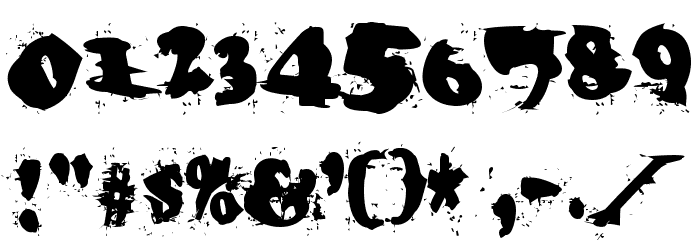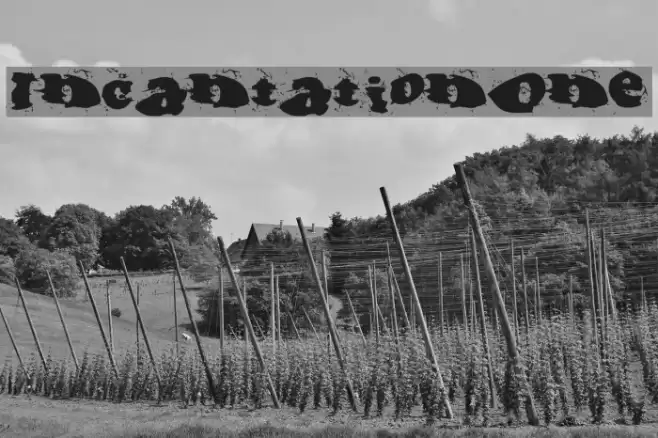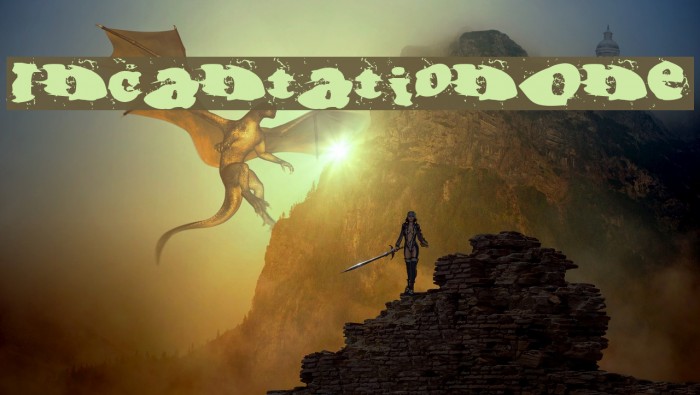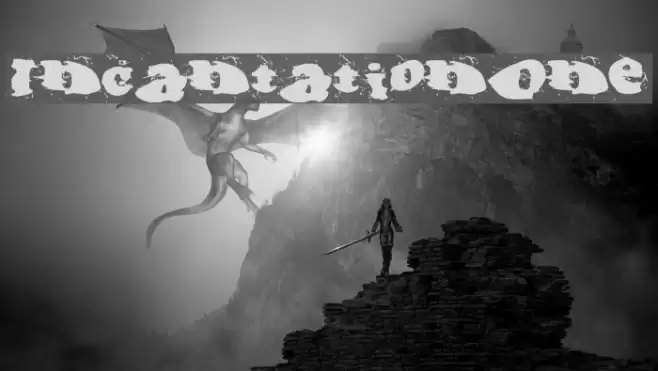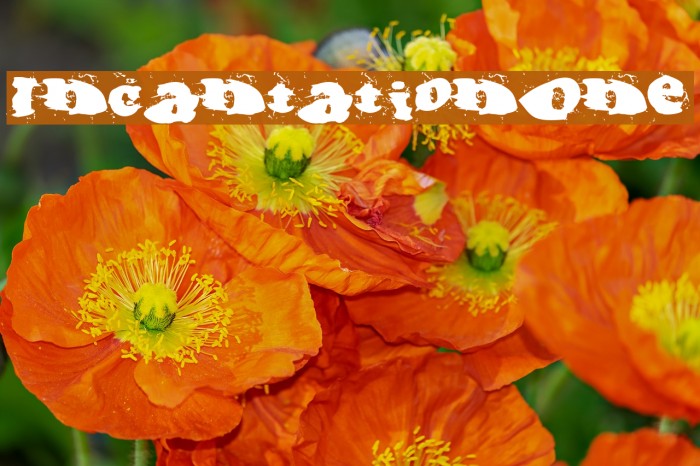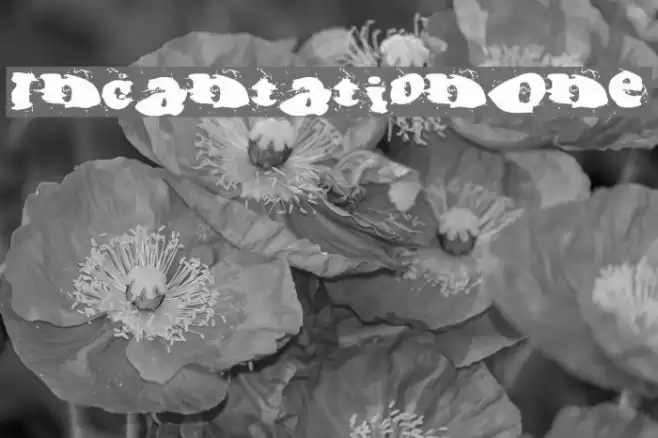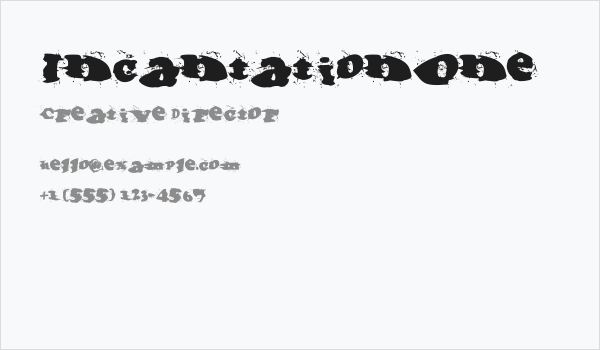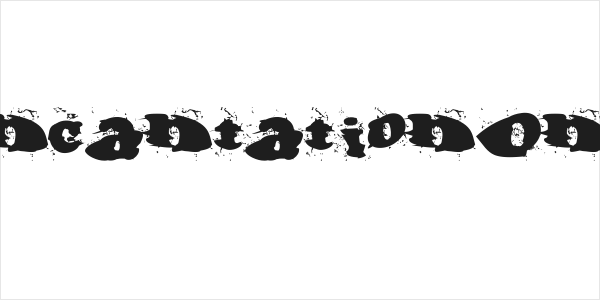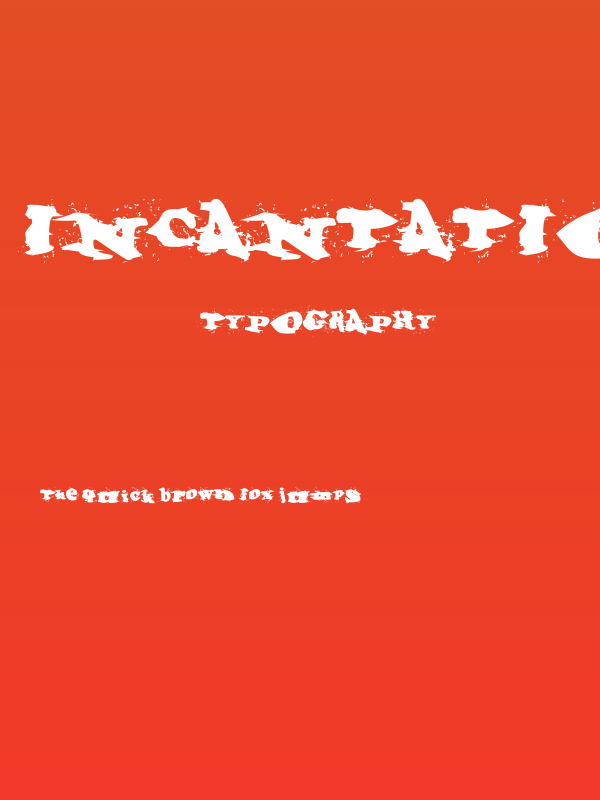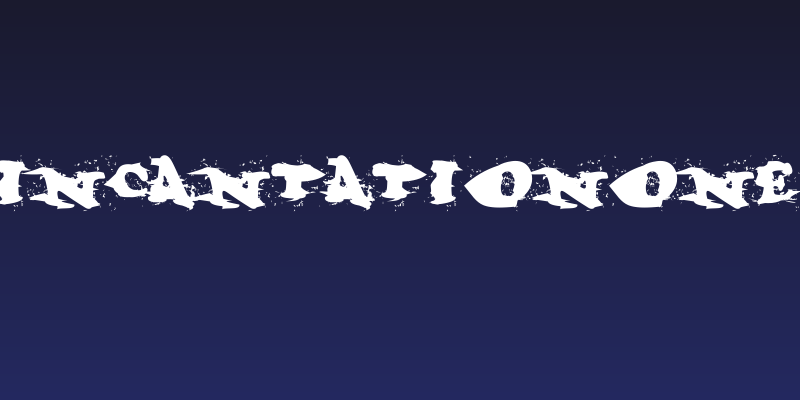
IncantationOne Font
IncantationOne Description
This font features a highly decorative and distressed style, reminiscent of grunge or graffiti art. The characters are bold and irregular, with splatters and rough edges that give it a chaotic and edgy appearance. Each letter is unique, with varying thickness and a hand-painted look that suggests movement and energy. The font's distinctiveness makes it stand out, capturing attention with its artistic flair and rebellious spirit. It's ideal for projects that require a bold statement or an alternative aesthetic, such as music album covers, posters, or urban-themed designs.
| Proposed Projects | Ideal for music album covers, edgy posters, urban-themed designs, and artistic projects. |